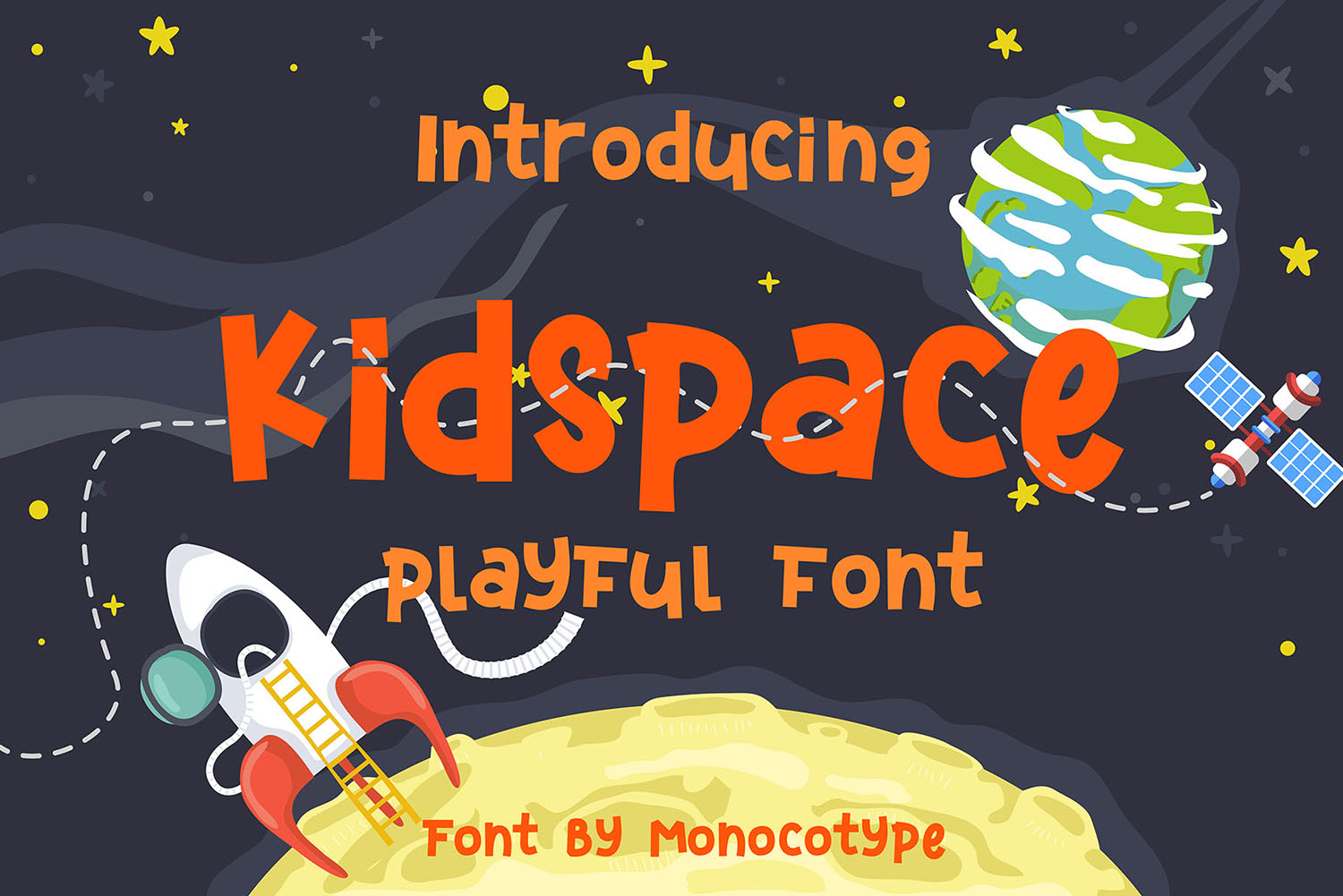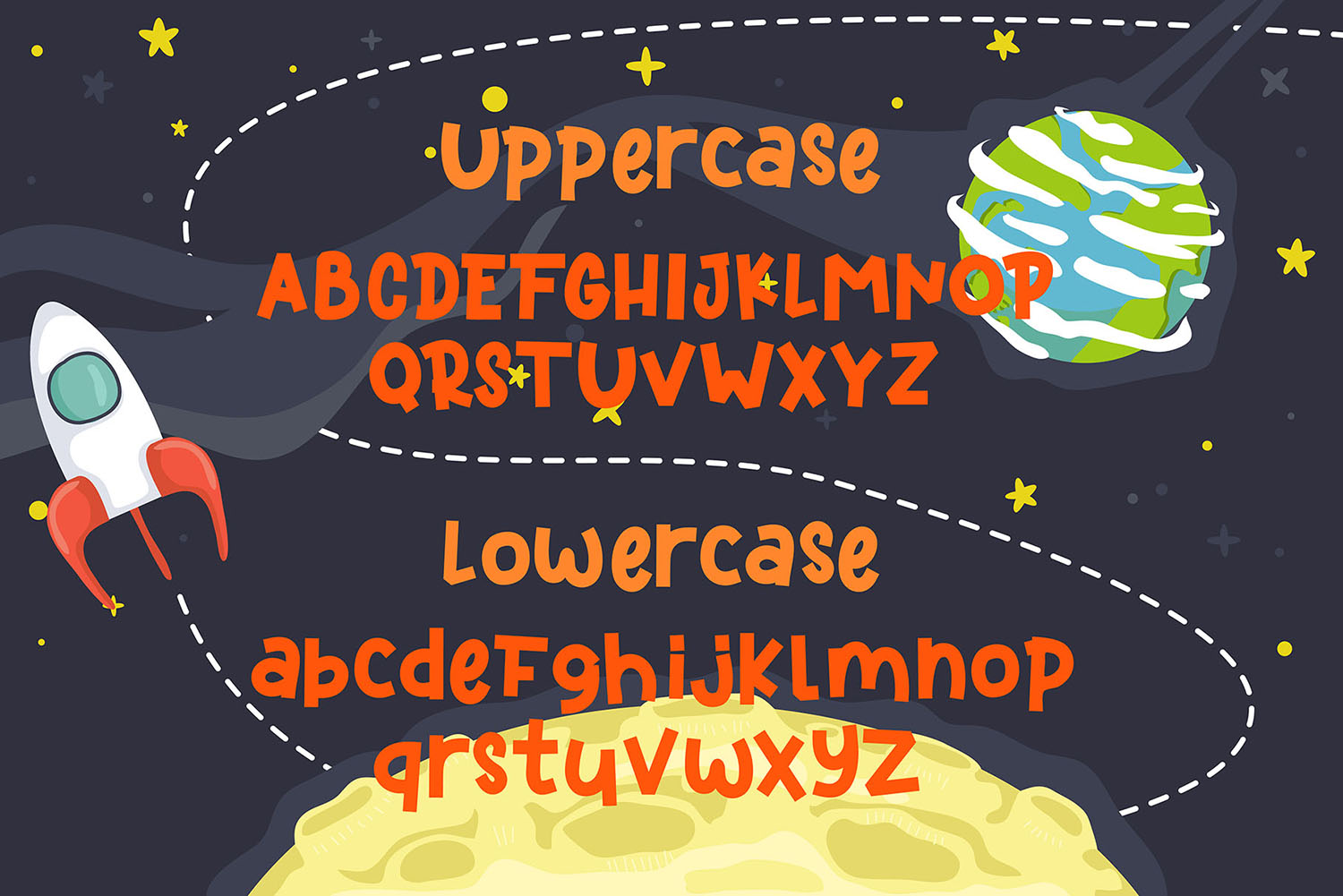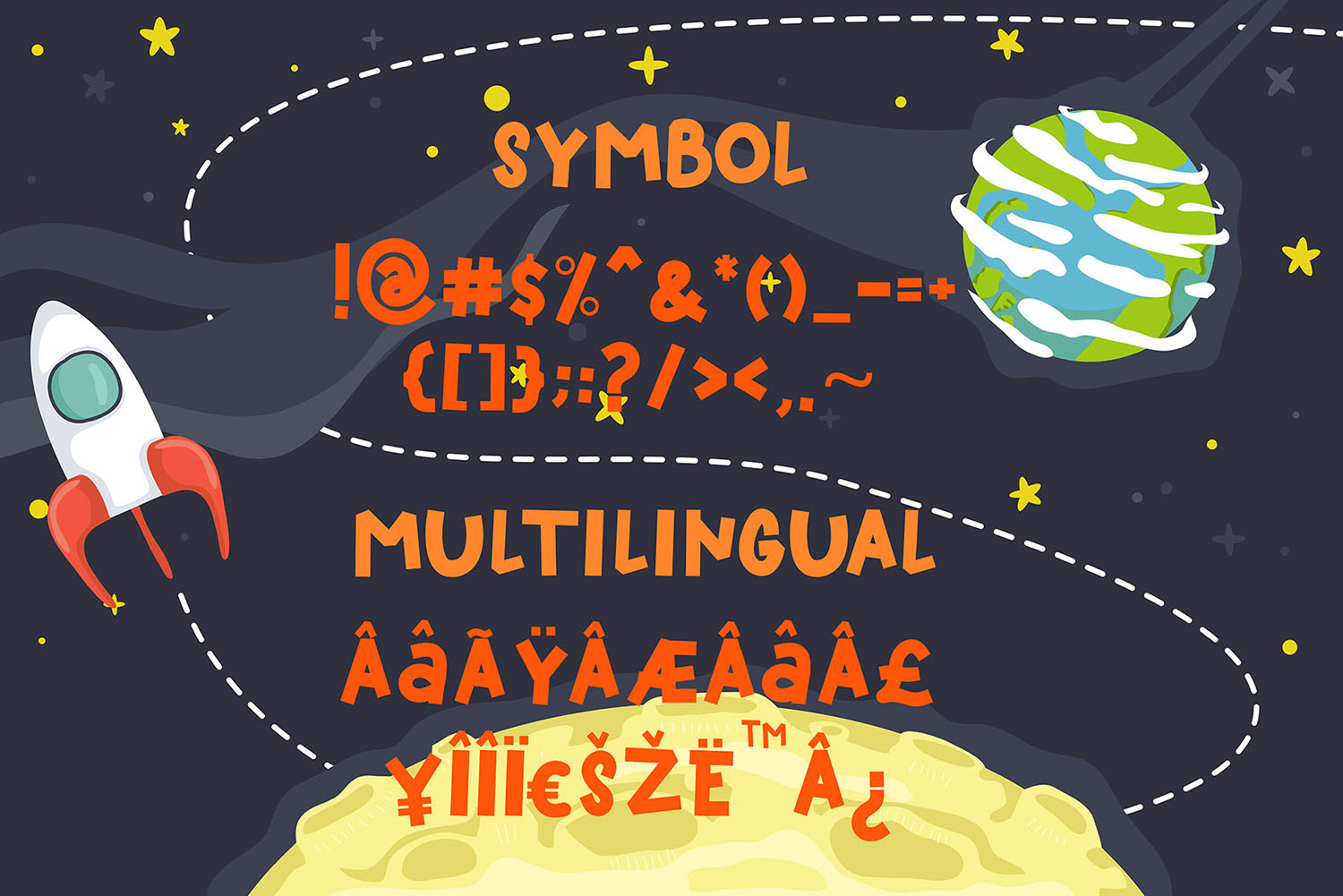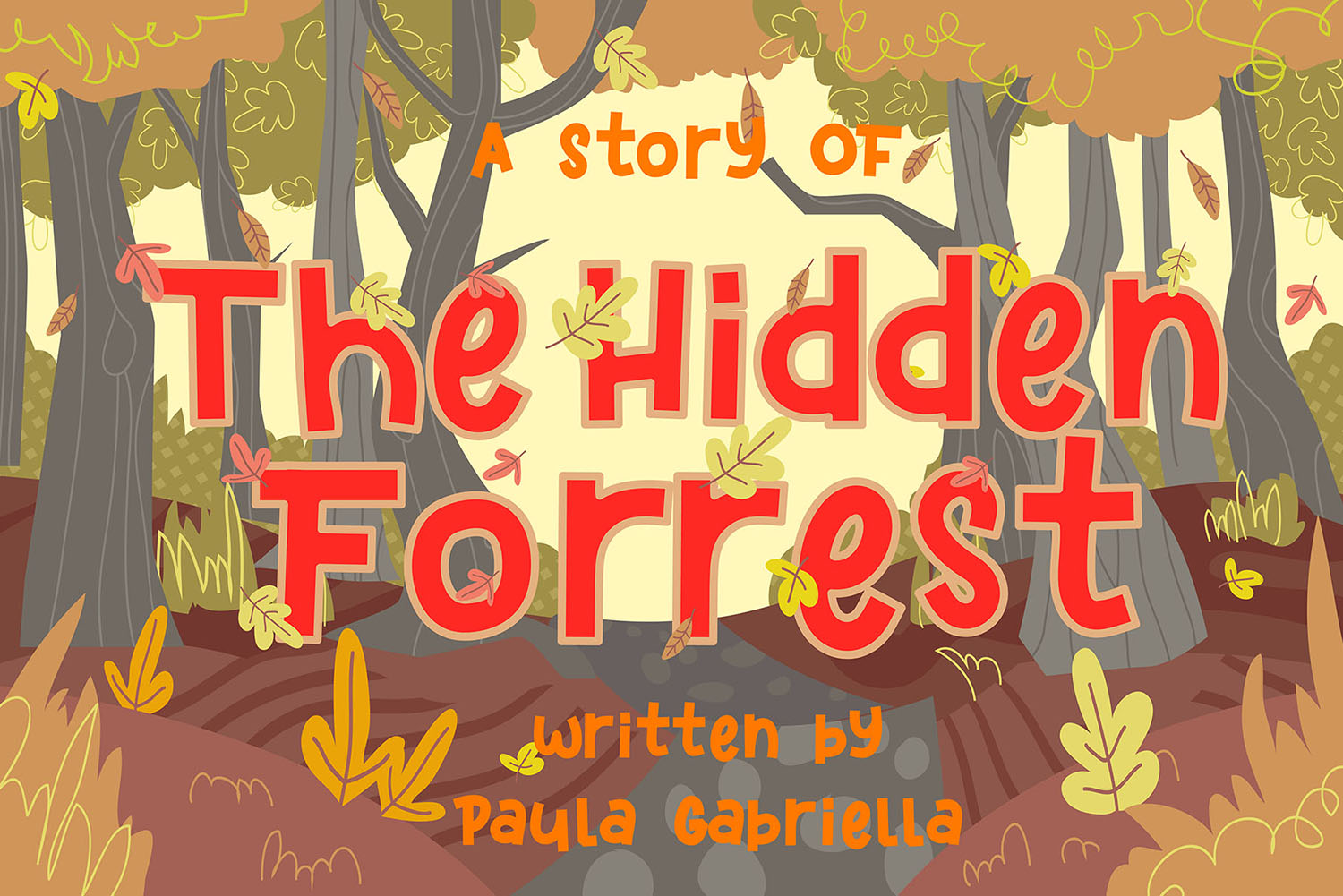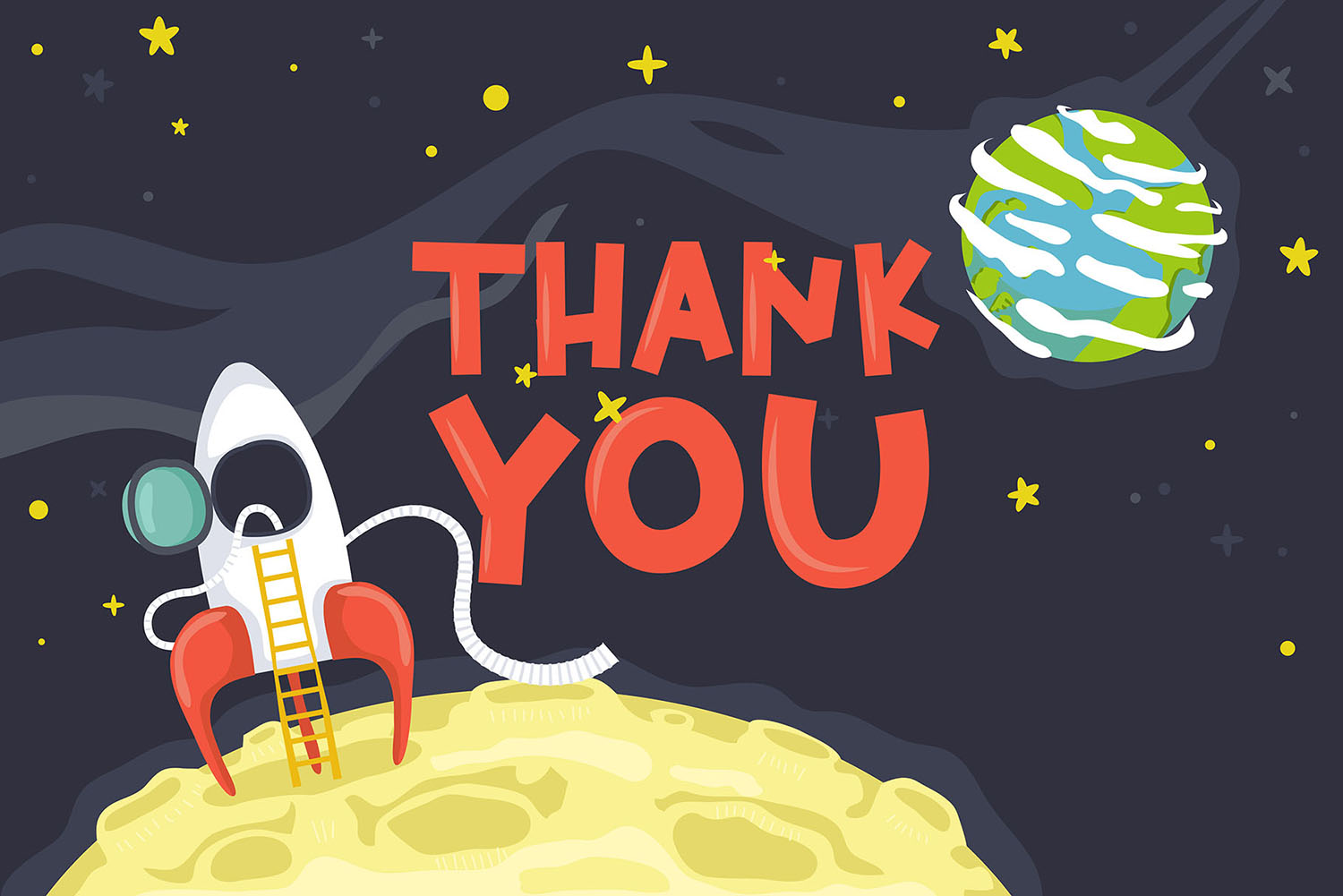
Kidspace Free Font
Kidspace Free Font is playful style font, with alphabet, numbers, symbol, and multilingual feature. You can use this on kids project, logo, social media post, book cover, and other project. This free typeface was designed by talented Monocotype Foundry. If you like it don’t forget to check out the full version.